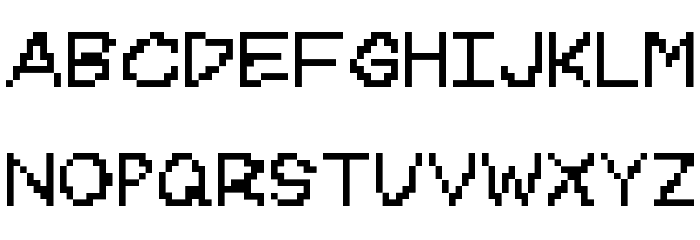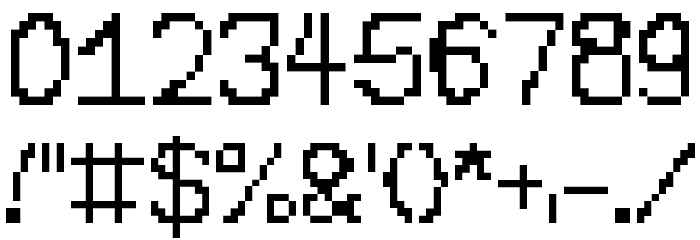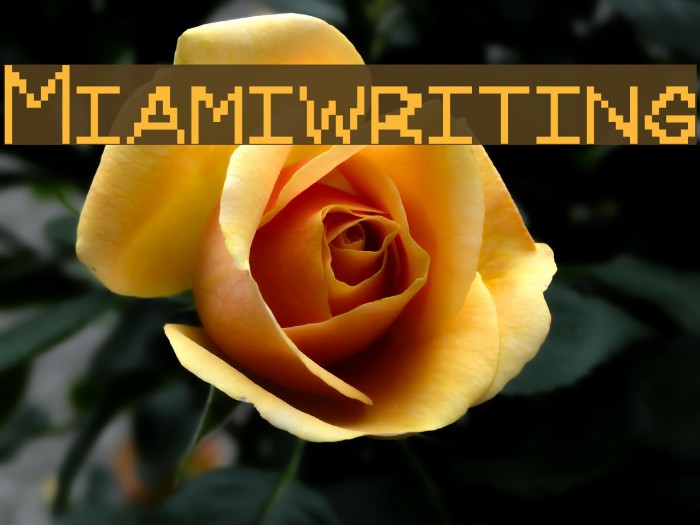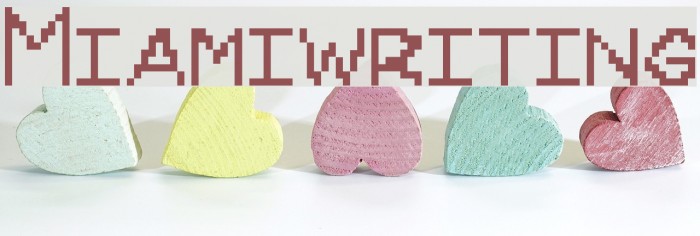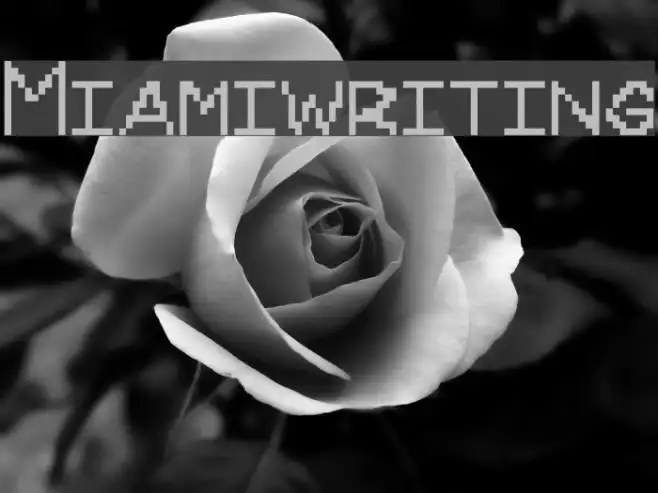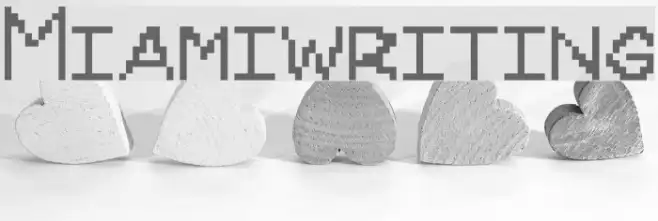
Miamiwriting Font
This font features a pixelated, retro style reminiscent of early digital displays and classic video games. Each character is constructed with a blocky, grid-like appearance, giving it a distinct, nostalgic feel. The uppercase and lowercase letters maintain a consistent height, with sharp angles and straight lines dominating the design. Numbers and special characters follow the same pixelated pattern, ensuring uniformity across all glyphs. The font's simplicity and geometric precision make it ideal for projects that aim to evoke a sense of nostalgia or a digital aesthetic.
A pixelated, retro-style font with a blocky, grid-like appearance.
- Proposed Projects: Ideal for retro video game designs, digital art projects, and nostalgic branding.
- Overall Style: Retro
- Use Case: Logos, Headlines, Digital Art